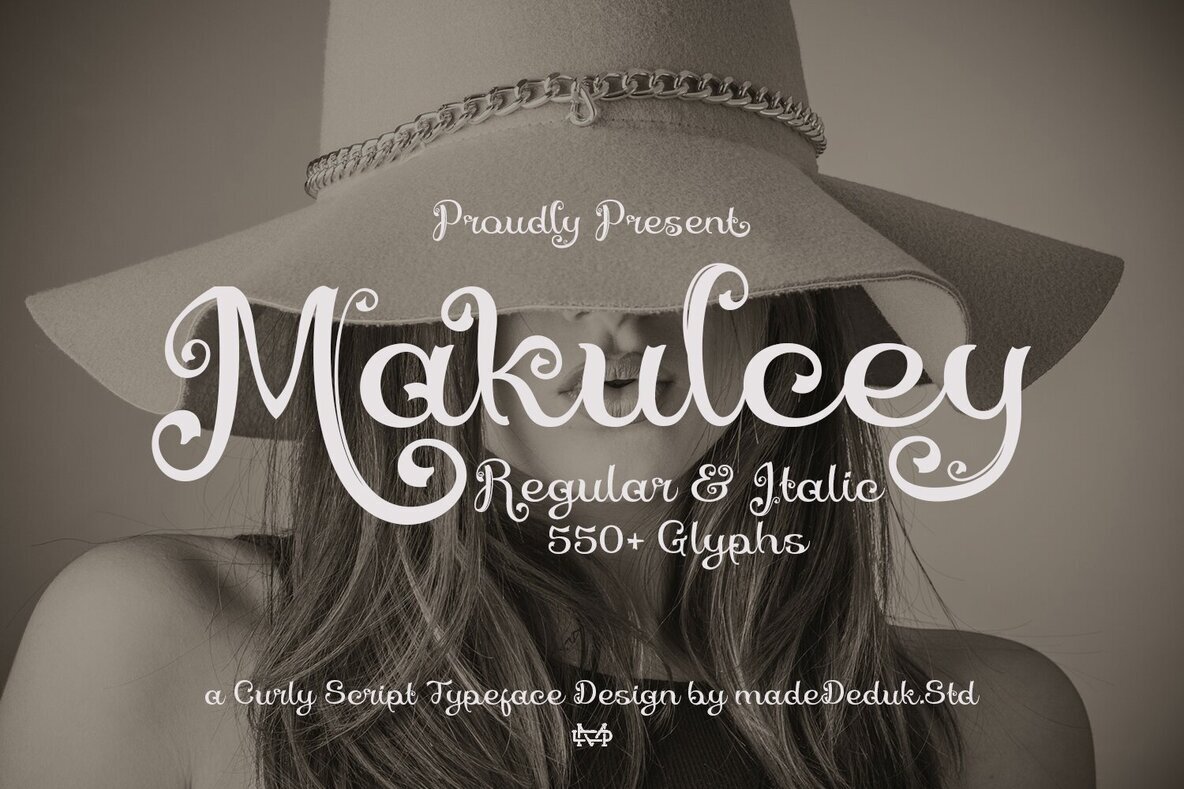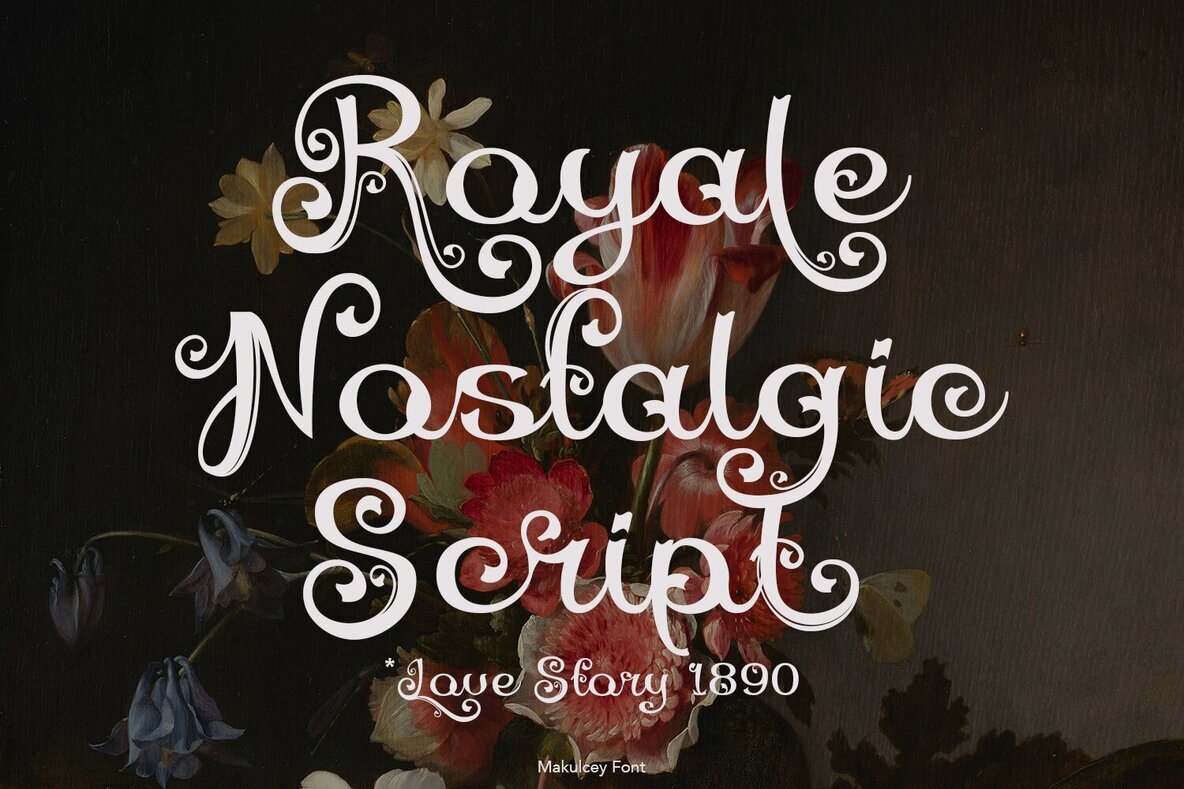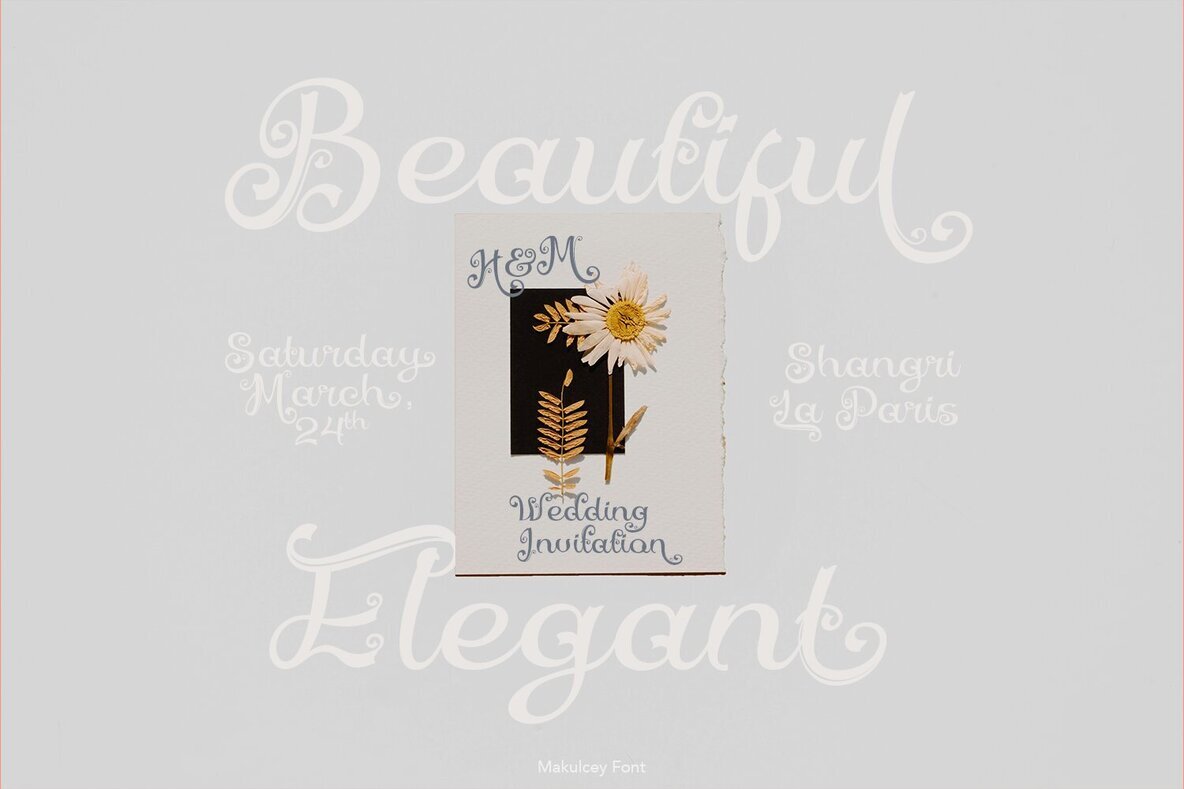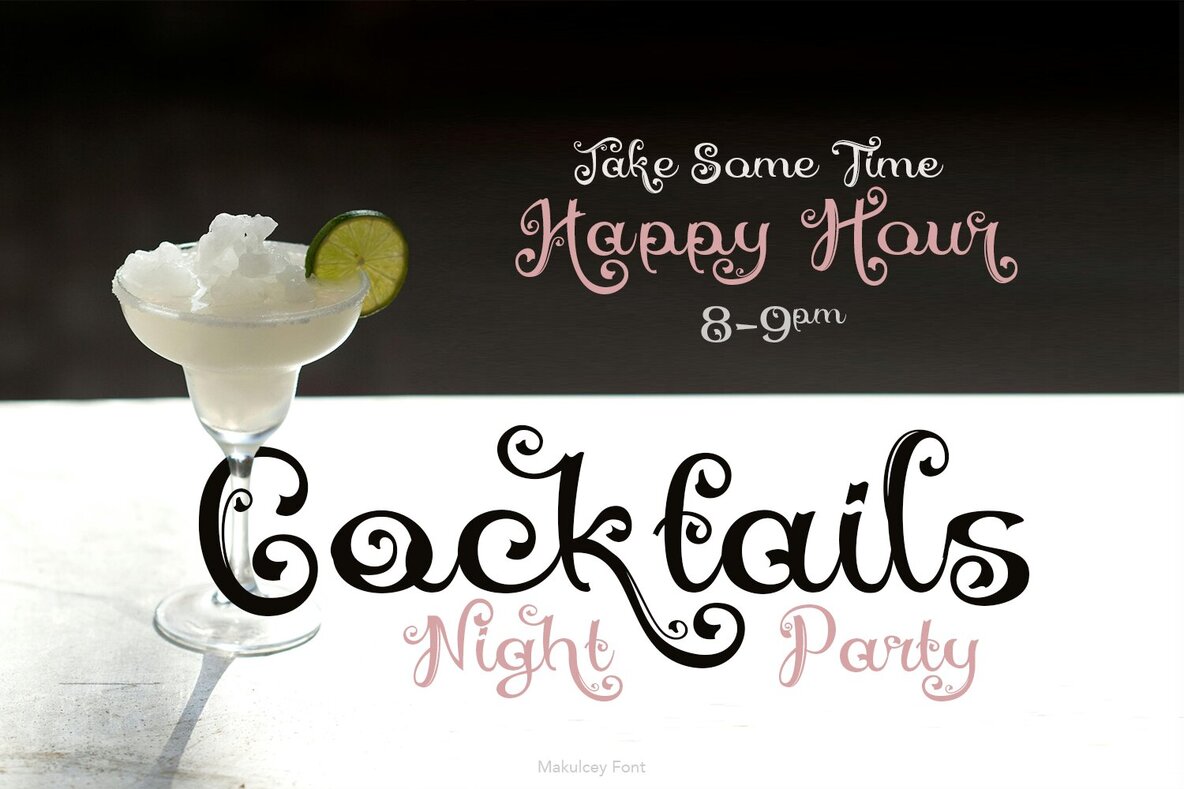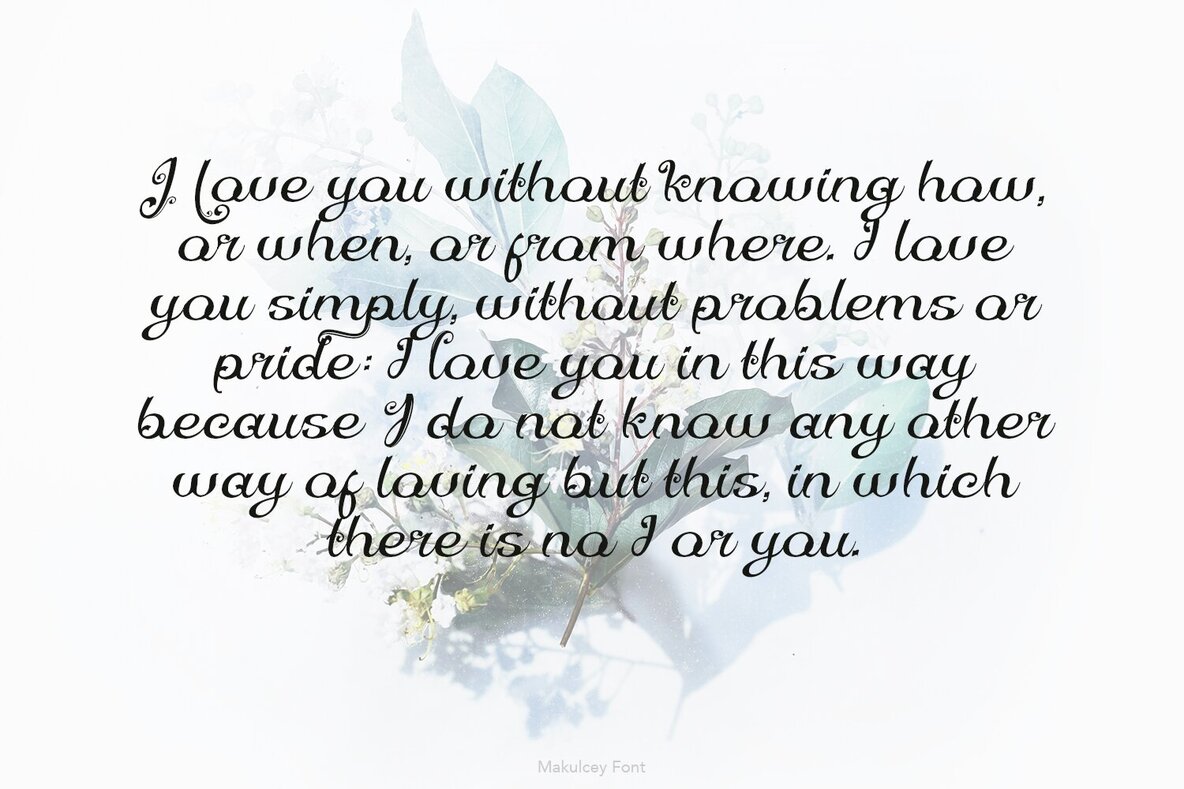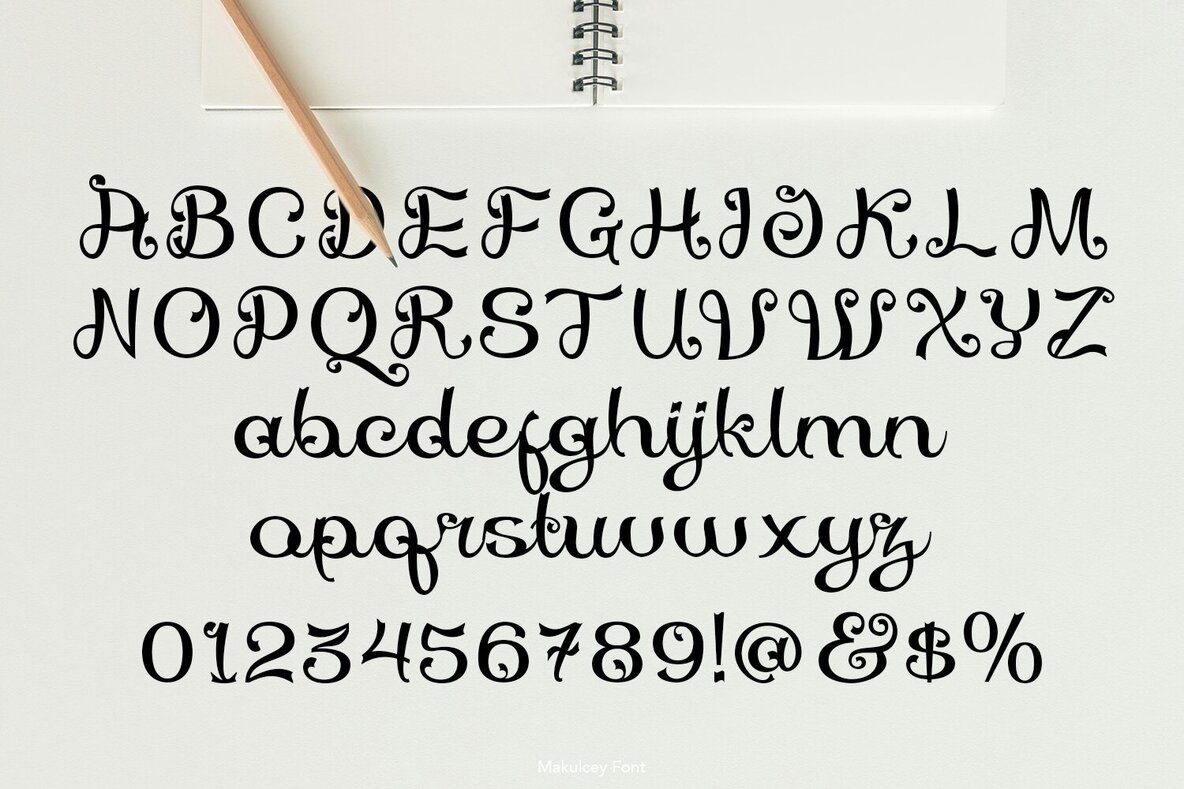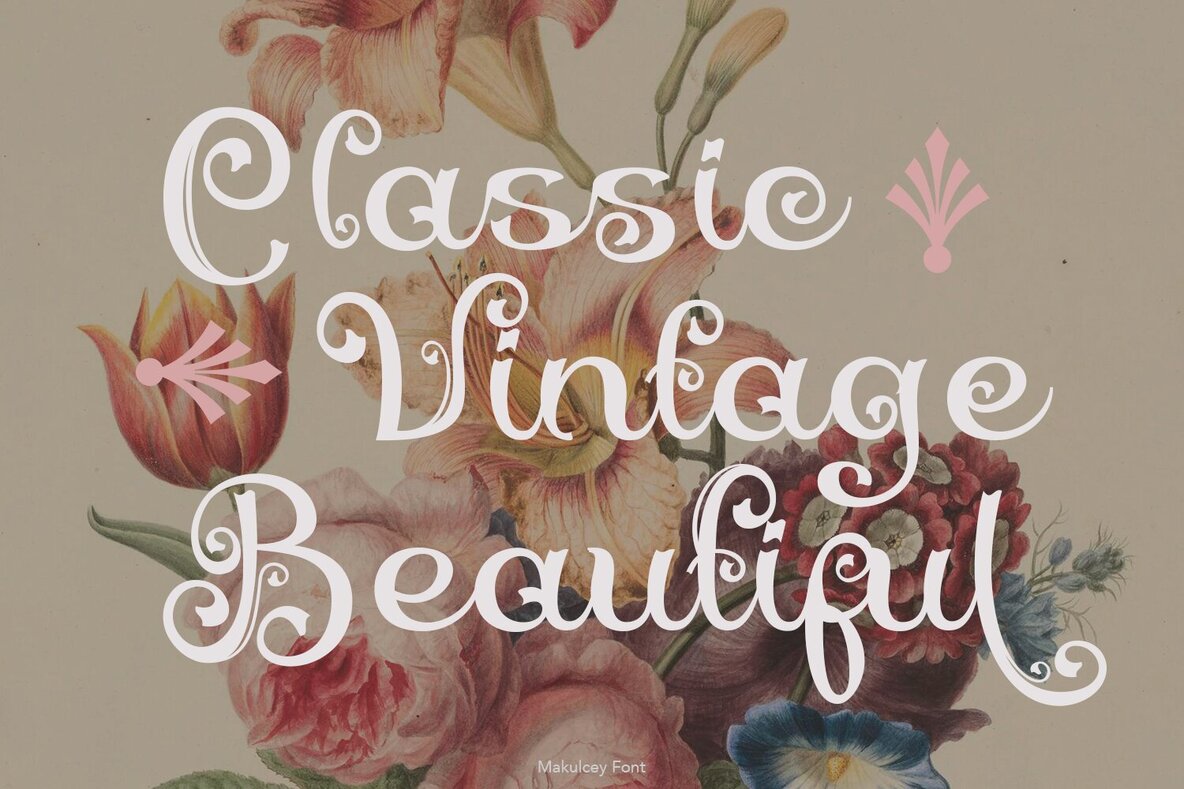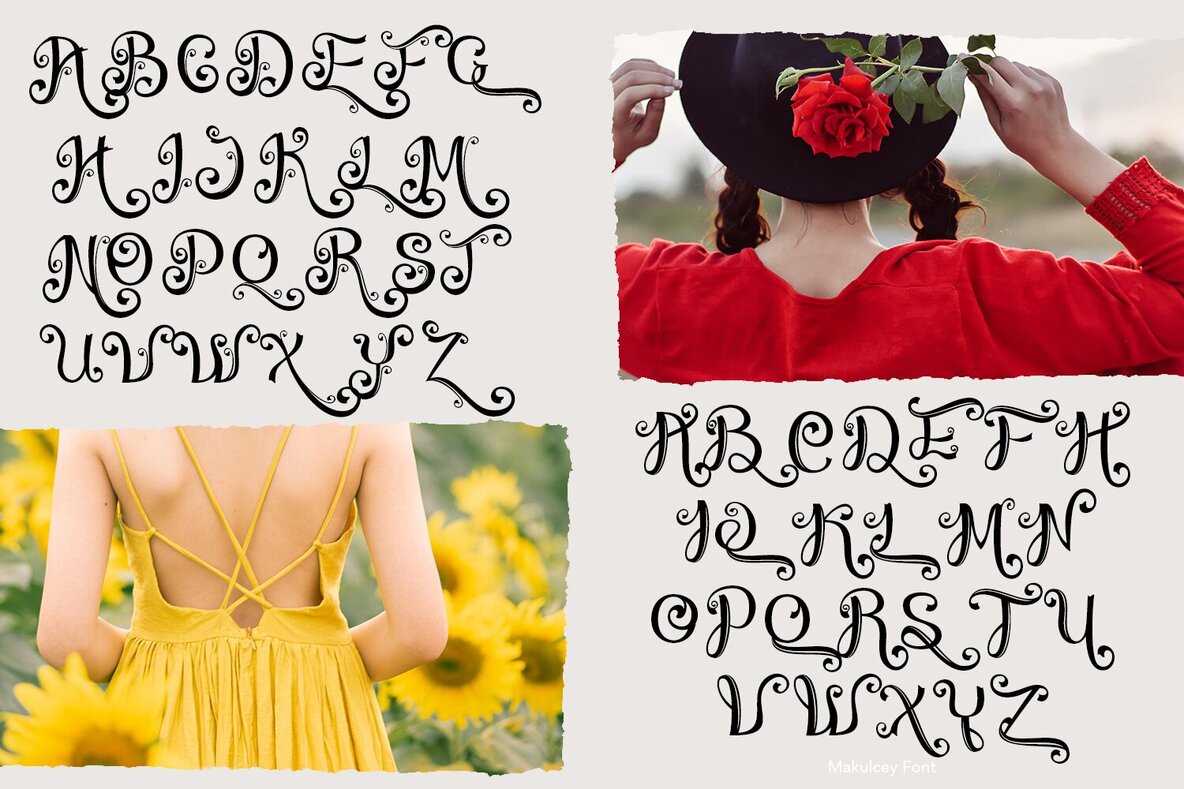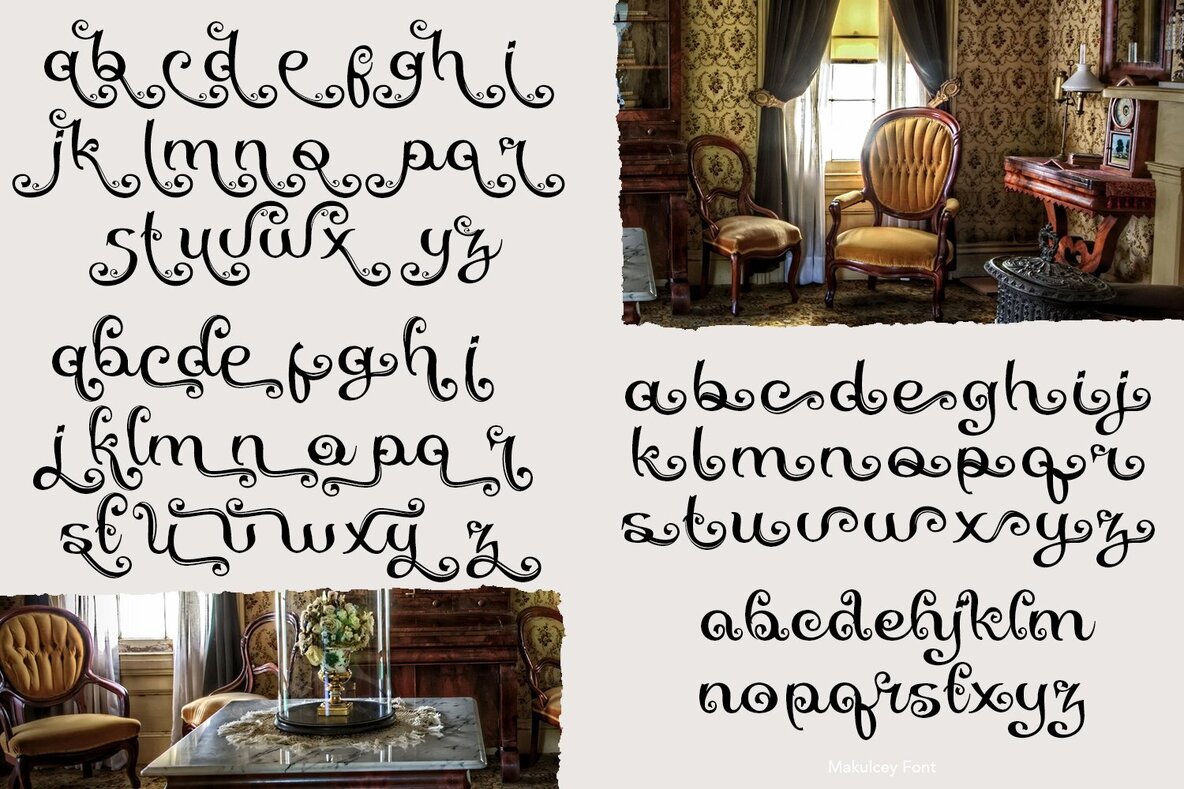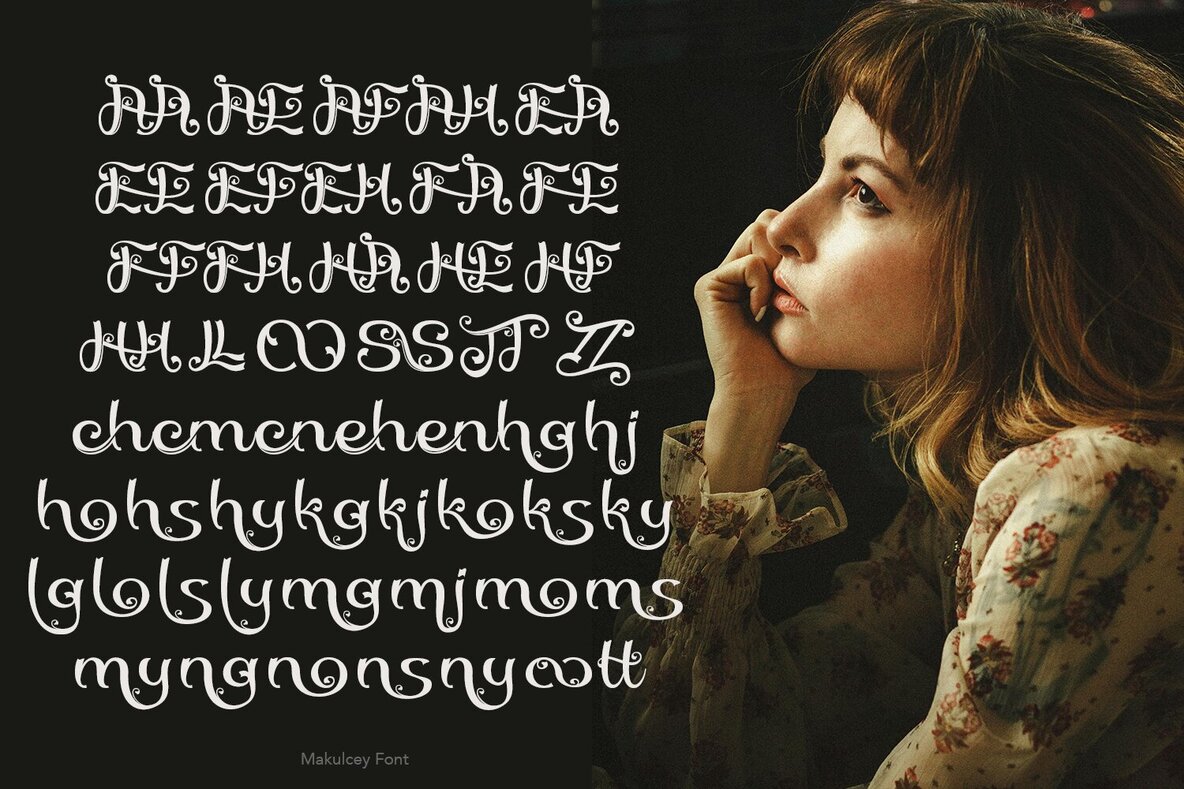
Makulcey Font
Makulcey is a timeless script font designed to infuse elegance into your projects. With its charming curly style, enhanced by numerous alternatives and ligatures, this font offers both versatility and flair. Makulcey is the perfect choice for creatives seeking a sophisticated vintage-modern aesthetic in their designs.Makulcey: A Classic Script with a Modern Twist